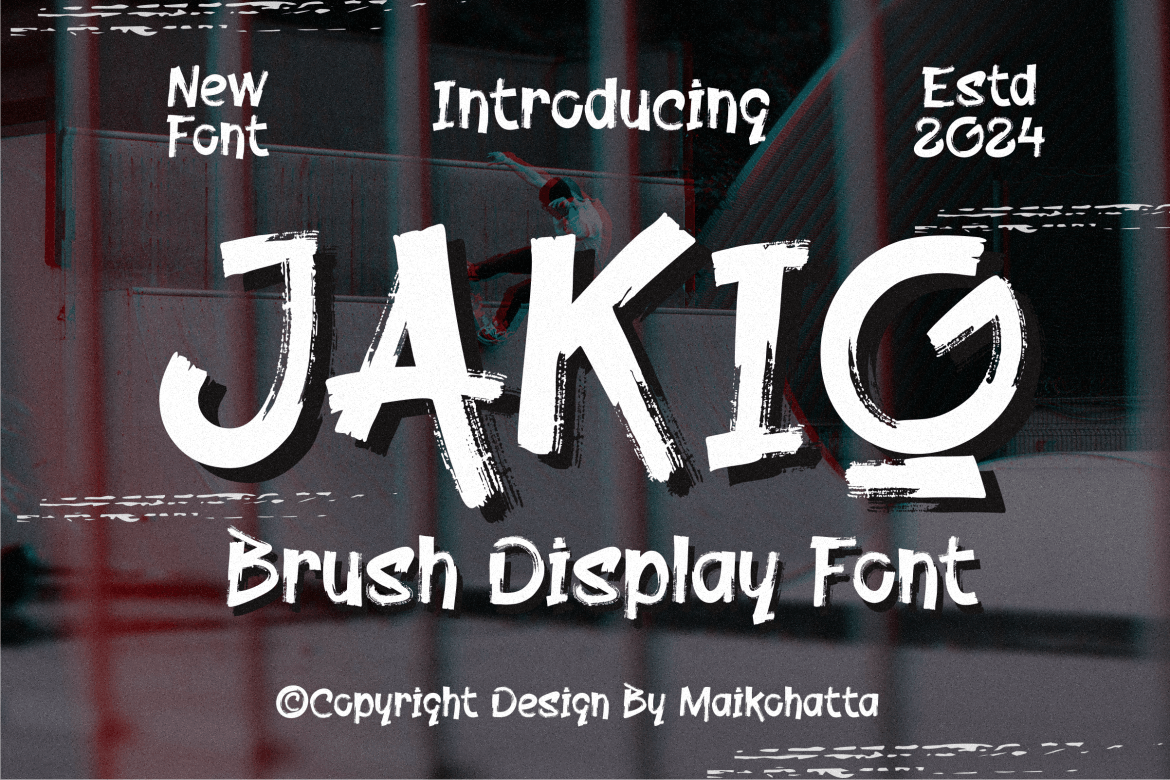
Jakio - Brush Display Font
Jakio - Brush Display Font energizes dynamic sports team branding, athletic competition graphics, martial arts studio signage, fitness training program materials, competitive gaming interfaces, action-packed event promotions, high-energy youth campaigns, dynamic dance studio identities, explosive music festival posters, adrenaline-fueled brand identities, kinetic art exhibitions, and powerful marketing campaigns where dynamic movement and energetic brush artistry create unstoppable momentum experiences.
This dynamic typeface generates excitement through its perfect embodiment of kinetic energy and explosive movement that creates typography pulsing with athletic power and unstoppable forward momentum. Jakio - Brush Display Font captures the essence of dynamic action with its energetically flowing brush strokes that suggest rapid movement, athletic precision, and the explosive energy found in peak performance moments. The font's kinetic design approach incorporates elements that evoke speed, agility, and the powerful momentum that defines champions in sports, gaming, and competitive endeavors. Its distinctive character reflects the intensity, determination, and explosive energy that define authentic athletic excellence and dynamic performance.
The Jakio - Brush Display Font family includes multiple kinetic variations such as Regular, Bold, Light, Dynamic, and Explosive versions, each maintaining the font's characteristic energetic flow while offering different levels of dynamic impact. The collection features kinetic brush textures, movement-inspired effects, and athletic styling that enhance its performance credibility. Additional elements include speed symbols, athletic ornaments, dynamic decorative borders, and explosive flourishes that reinforce the font's connection to high-energy performance and competitive excellence.
Athletic brands and high-energy organizations consistently select Jakio - Brush Display Font Free Download for projects requiring typography that communicates dynamic energy and explosive performance capability. This remarkable typeface excels in applications where establishing athletic credibility and conveying kinetic momentum are essential for sports and entertainment success. The font's dynamic qualities make it particularly effective for sports teams, fitness brands, and competitive organizations targeting audiences who appreciate explosive energy and peak performance achievement.
Whether you're designing athletic team identities, creating high-energy event materials, developing competitive gaming campaigns, or crafting explosive performance communications, Jakio - Brush Display Font delivers unmatched kinetic authenticity. Its ability to convey dynamic movement, explosive energy, and athletic momentum makes it invaluable for performance brands seeking typography that genuinely captures the essence of unstoppable athletic power. The font's energetic presence ensures your designs will communicate the explosive dynamism and kinetic excellence that define exceptional athletic communications and high-performance competitive experiences.